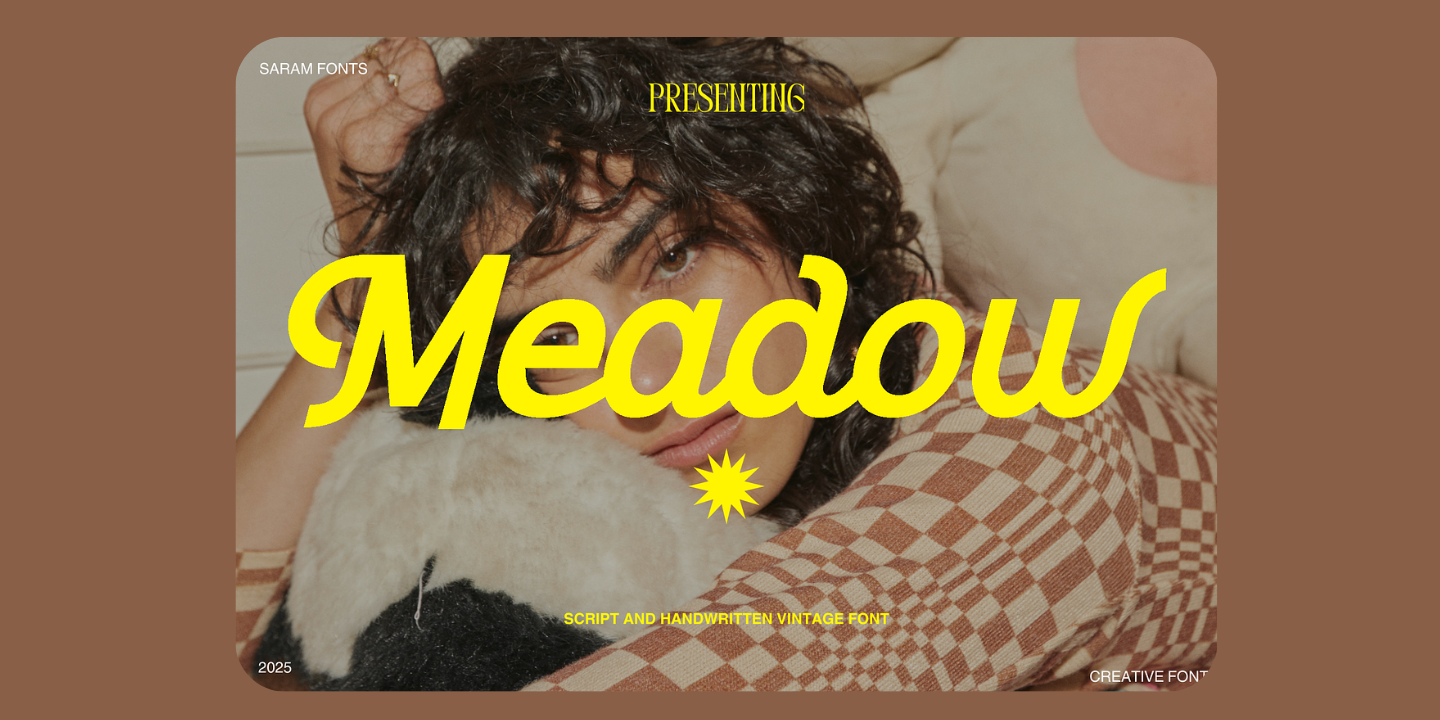
Meadow
Meadow is a brush script font family published by Fontistry.
Meadow is a retro-inspired script font, channeling the bold, hand-lettered aesthetics of the 1980s. Designed with a strong and vintage feel, this typeface is perfect for logos, apparel branding, posters, magazines, packaging, and more.
Crafted to bring authenticity and character to your designs, Meadow offers smooth curves, bold strokes, and a nostalgic charm that blends beautifully with modern projects.
???? Features:
✔ OpenType Features – Access a wide selection of alternate letters and ligatures for a custom feel.
✔ Vintage-Inspired Look – Perfect for retro branding, merchandise, and signage.
✔ Bold & Striking – Designed to stand out in headlines, logos, and typography-based designs.
???? Perfect For:
Logos & Branding
Apparel & Clothing Labels
T-Shirts & Merchandise
Magazines & Editorials
Posters & Headlines
Vintage & Retro-Themed Designs
Packaging & Stationery
Bring your designs to life with the bold nostalgia of Meadow! ????✨